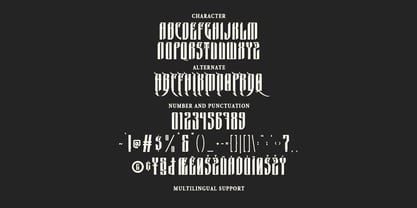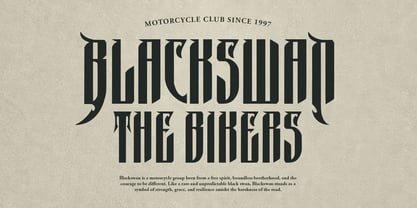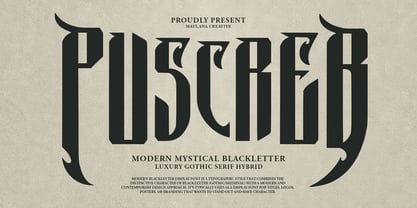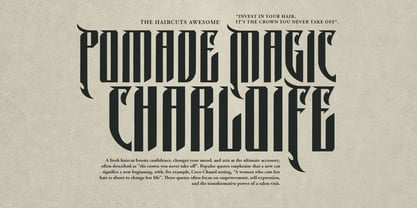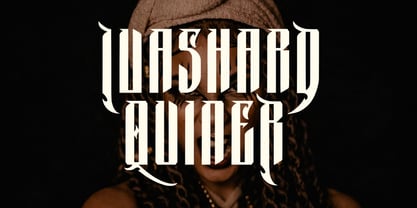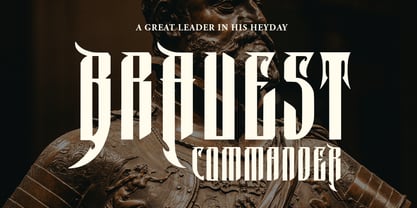
MC Puscreb
Puscreb is a sophisticated display font designed by Maulana Creative that masterfully blends the heritage of traditional Blackletter with the sleek refinement of a modern luxury serif. It is crafted for designers looking to balance "mystical" or "gothic" vibes with contemporary, high-end aesthetics. Key Design Features - Hybrid Anatomy: The font occupies a unique space between Gothic Medieval and Modern Serif. It retains the verticality and sharp angles of blackletter while incorporating the clean lines and legibility of luxury typefaces. - Imposing Presence: Characterized by its condensed, tall structure, Puscreb commands attention. The letters feature sharp, thorn-like terminals and aggressive yet elegant ascenders/descenders. - Mystical Aesthetics: As its subtitle "Modern Mystical Blackletter" suggests, the font carries an atmospheric weight perfect for projects involving themes of history, mystery, or edgy luxury. - Stylistic Alternates: One of its strongest features is the set of dramatic alternates. These include extended swashes and sharper "hooked" tails that allow for custom, logo-like compositions within a single typeface.